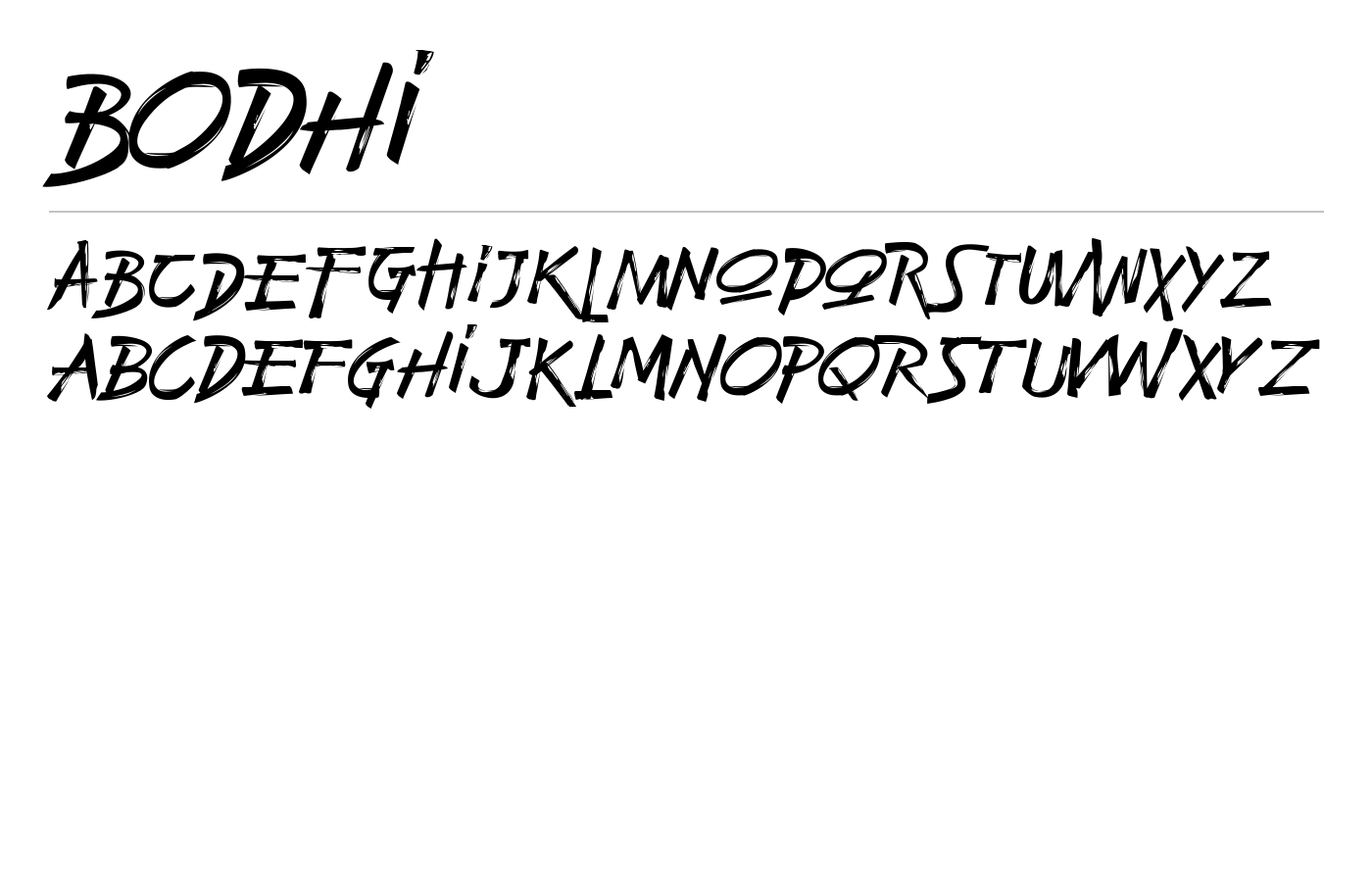
Bodhi is an energetic sans serif font with a brush script style, featuring bold, irregular strokes that create a dynamic, hand-painted look. Its tall, slightly condensed letterforms and sharp edges give it a modern and edgy feel, perfect for designs that want to convey creativity and movement. This font works well in branding, posters, and headlines where a lively and artistic expression is needed.
Bodhi Font
About Bodhi Font